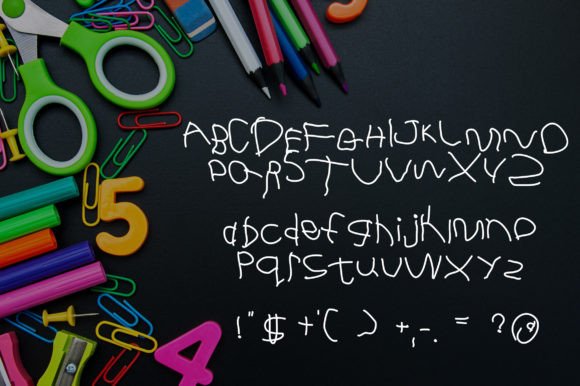
Unleashing the Joy of Childhood Creativity
Remember the first time you scribbled your name on a piece of paper? The excitement of holding a crayon or pencil, watching your wobbly lines come to life, and the pride of creating something all your own? That sense of unbridled creativity is exactly what designers can tap into with the Kid-ergarten Font.
This charming, hand-drawn font is a love letter to the imperfect beauty of children’s writing. Its playful style is perfect for school projects, kid-friendly designs, and fun party invitations. Whether you’re a seasoned designer or a DIY enthusiast, the Kid-ergarten Font is a valuable addition to your toolkit, offering a unique way to add personality to your designs.
Kid-ergarten Font Key Features
- Unique Characteristics: Designed specifically for educational materials, Kid-ergarten Font features rounded shapes and friendly lines to make reading and learning more engaging for children.
- Font Family: The font family includes Kid-ergarten Regular, Kid-ergarten Italic, Kid-ergarten Bold, and Kid-ergarten Bold Italic.
Kid-ergarten Font Review
Overall, I think Kid-ergarten Font has a lot of potential, but it’s not without its quirks. Let’s dive in and see what’s working well and what’s not.
- ✨ Unique and playful feel: Kid-ergarten Font has a distinctive look that’s sure to stand out in a crowded design space.
- ✨ Great for kid-focused projects: As the name suggests, this font is perfect for designing materials for kids, from educational resources to children’s books.
- ✨ Easy to read: Despite its playful feel, Kid-ergarten Font is surprisingly easy to read, even at small font sizes.
- ⚠️ Limited versatility: Kid-ergarten Font is best suited for kid-focused projects, but it may not be the best choice for more formal or professional designs.
- ⚠️ Some characters are lacking: While the font includes a wide range of characters, there are a few that are either missing or not well-designed.
- ⚠️ Not ideal for small text: While Kid-ergarten Font is easy to read, it’s not the best choice for small text, where its playful feel can become overwhelming.
Kid-ergarten Font is a fun and playful font that’s perfect for kid-focused projects. While it has its limitations, it’s a great choice for anyone looking to add some whimsy to their designs. Just be sure to use it in the right context, and don’t be afraid to pair it with other fonts to create a more balanced look.
The Kid-ergarten Font is ideal for:
1. Children’s educational materials, such as worksheets and activity sheets.
2. Branding and marketing materials for kids’ products and services.
3. Creating a playful and whimsical atmosphere in presentations and documents.
To get the most out of the Kid-ergarten Font, try:
1. Combining it with other playful fonts for a unique and eye-catching look.
2. Using it in conjunction with colorful backgrounds and graphics.
3. Experimenting with different font sizes and styles to create visual interest.
Alternatives to Kid-ergarten Font
Lobster Font is a casual, cursive script font that is ideal for headings and titles. It has a playful and elegant feel, making it perfect for designs that require a touch of sophistication. Compared to Kid-ergarten Font, Lobster Font is more refined and less childlike.